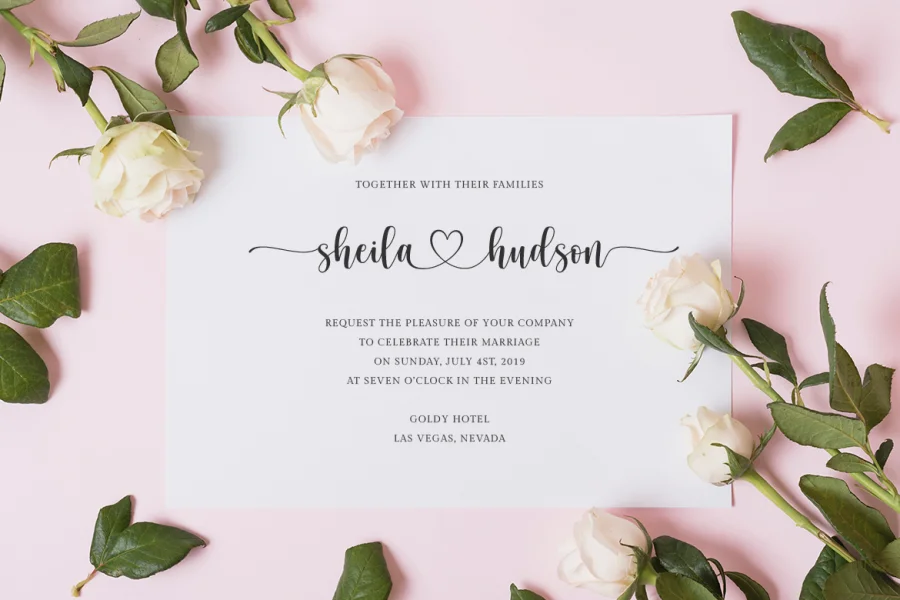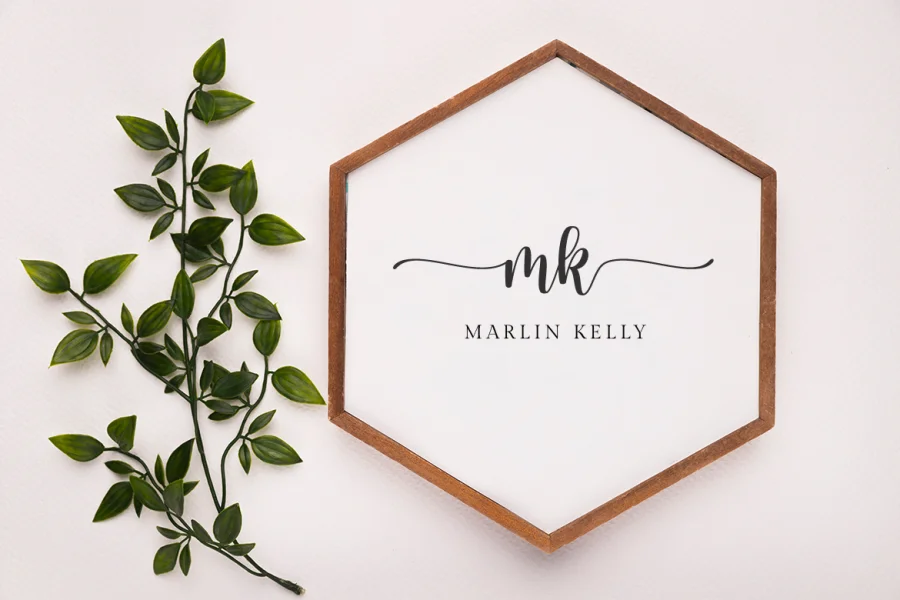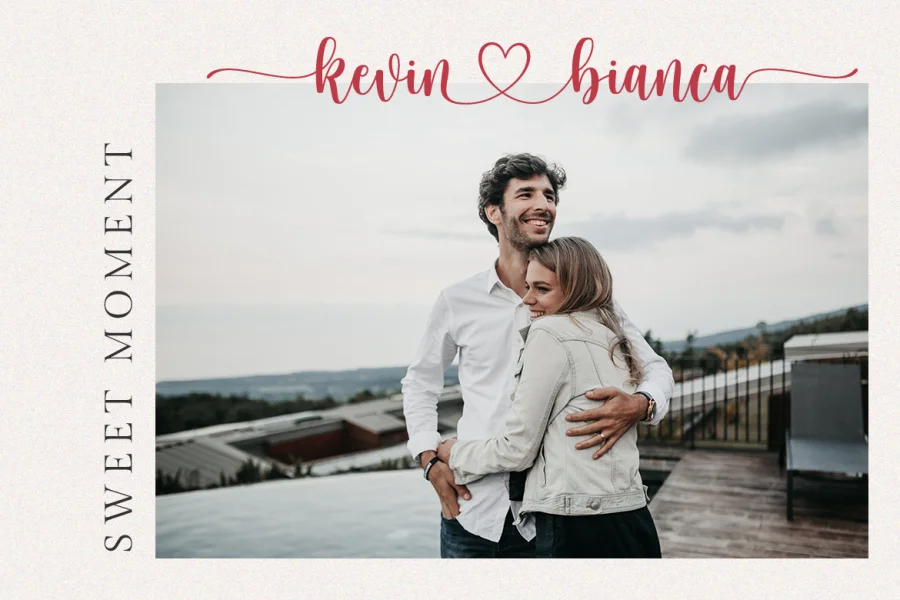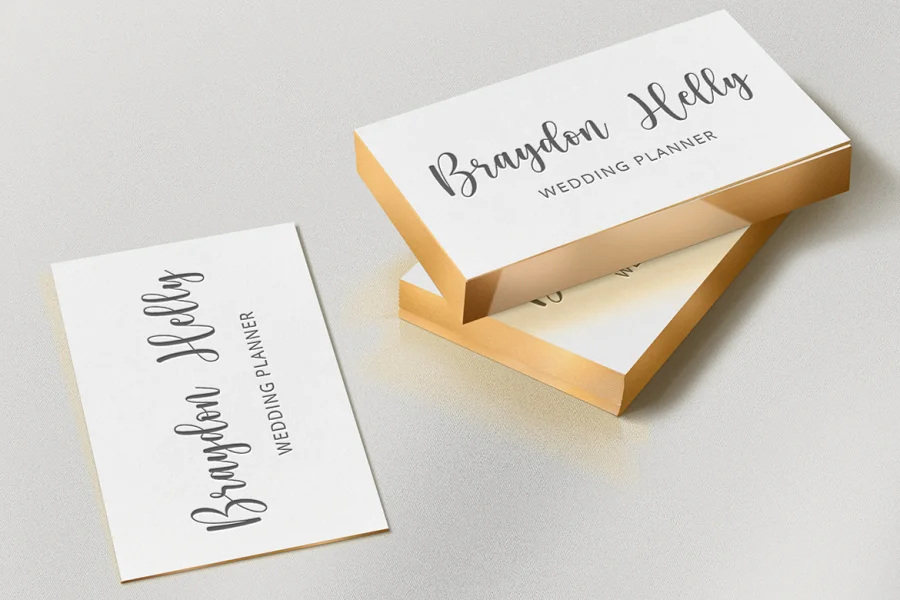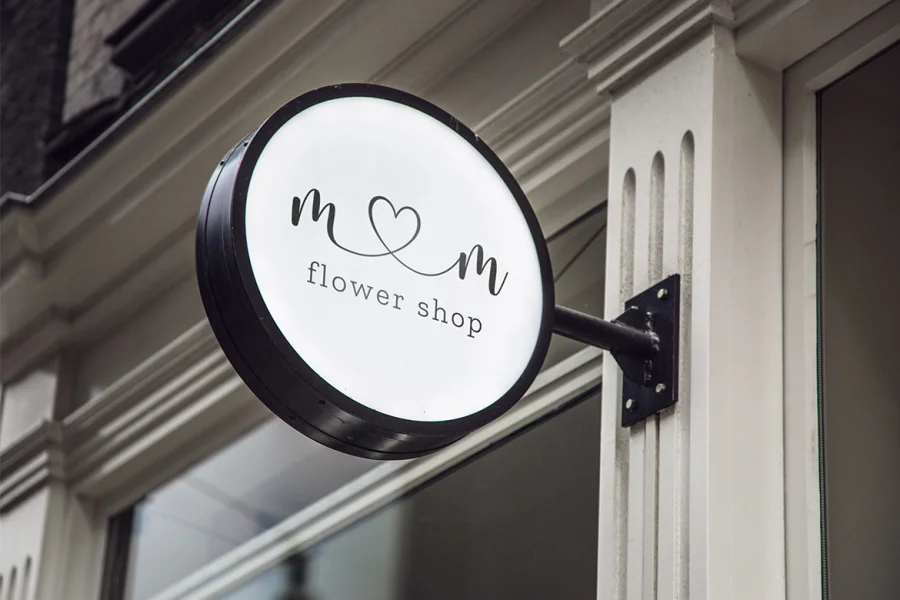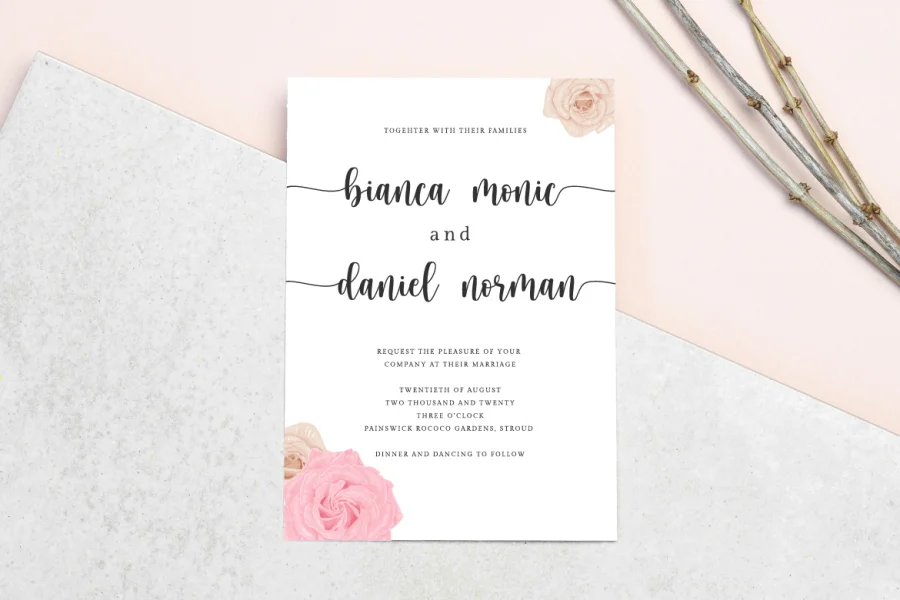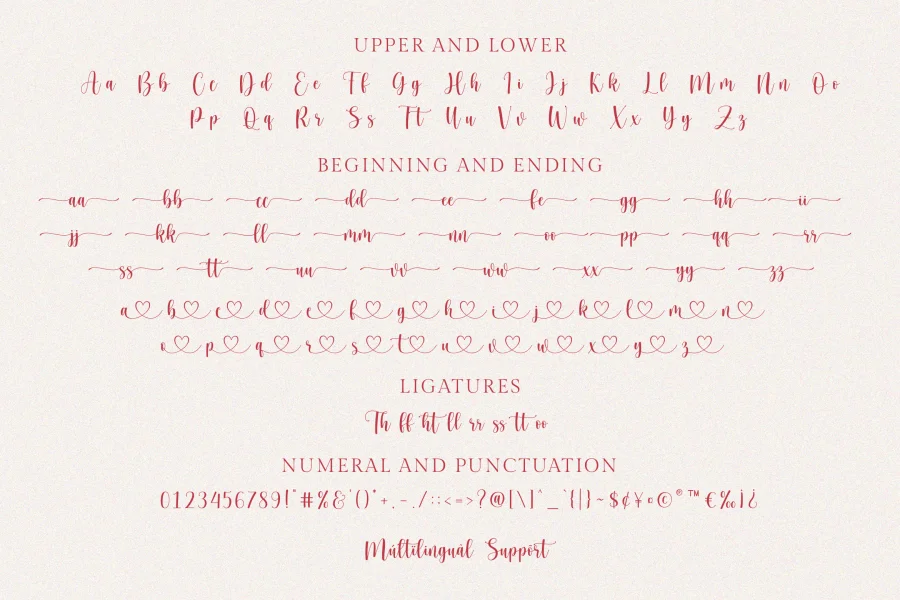
hello honey is a beautiful chic script that is suitable for branding, wedding invitations, and other romantic projects.
- hello honey tail.otf (beginning & ending swashes. Shift+”letter”=left side swash.
“letter”=right side swash)
- hello honey connecting heart.otf (connecting heart swash)